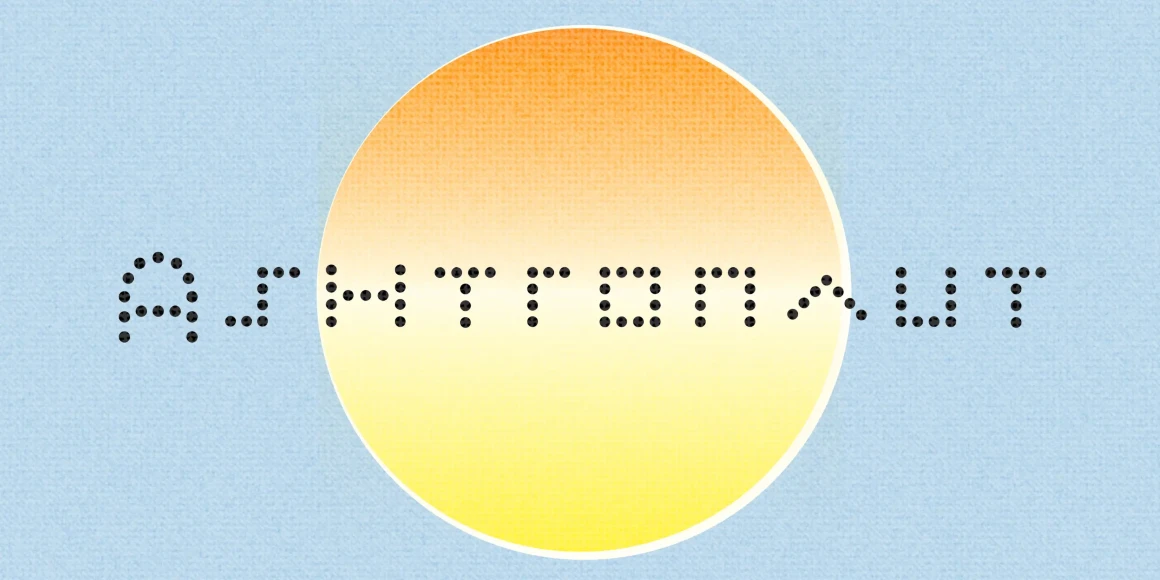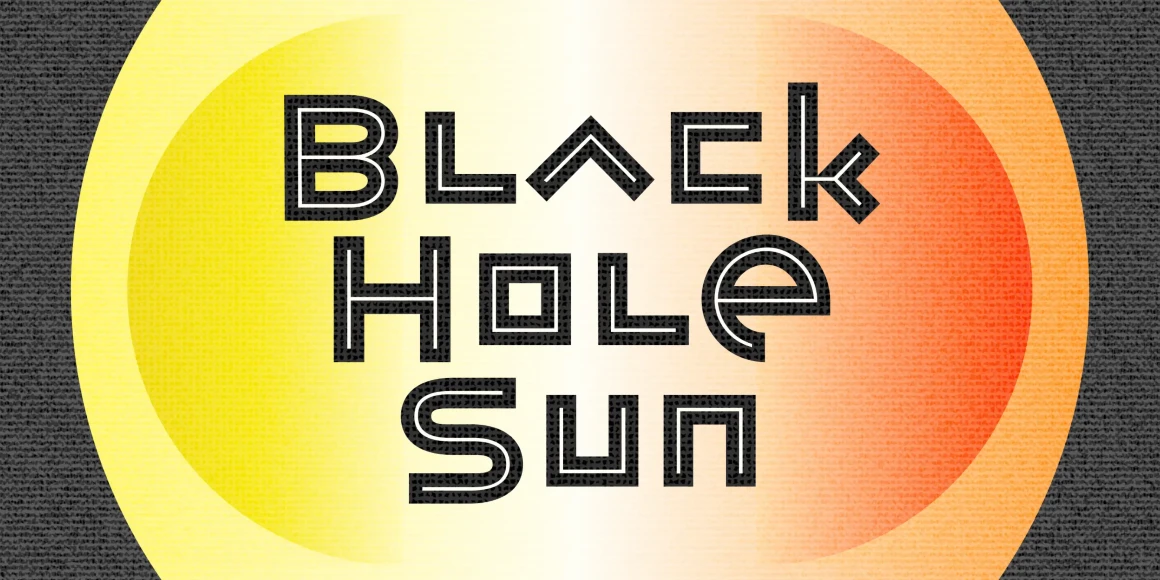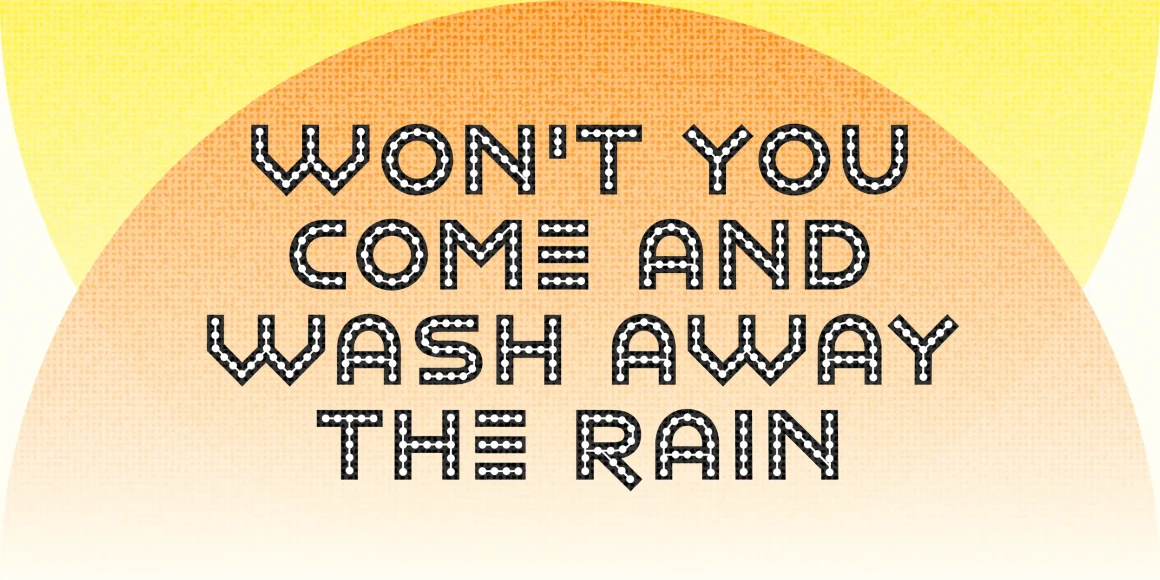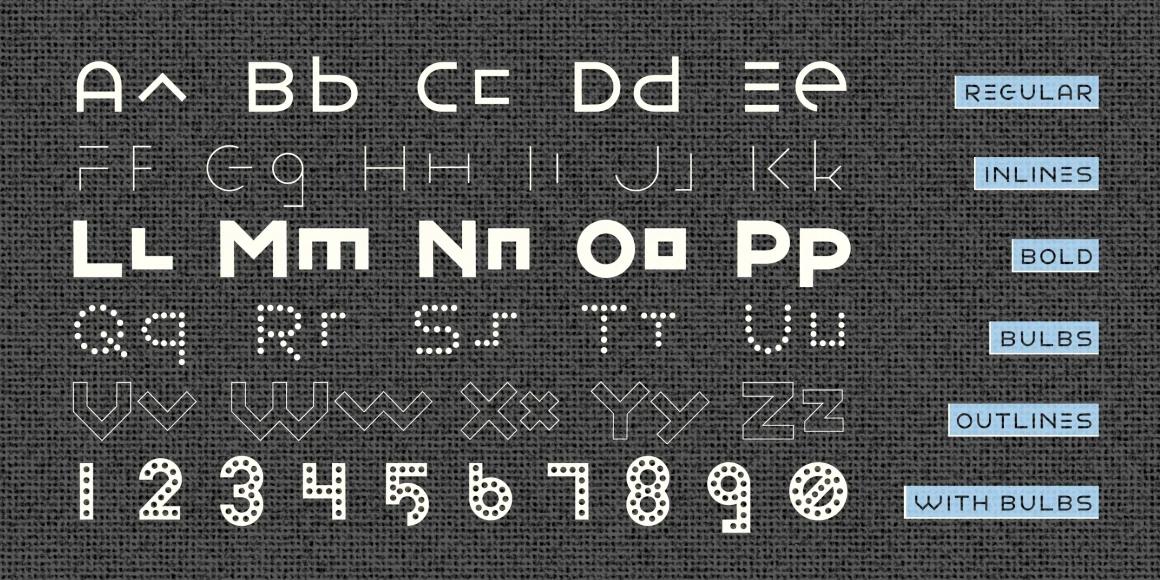
Ashtronaut
Like a phoenix rising from the ashes, the new Ashtronaut font is on fire and blasting off into outer space. This futuristic new font combines basic geometric forms like circles and dashes to form uppercase shapes that are softer and more traditional and lowercase letters with sharp and abstract characteristics. The result is a minimalist style that creates distinct and innovative new glyphs and letter combinations. The basic Bold variety is the strongest of the bunch. Try overlapping it with the other styles — Inlines, Outlines, and Bulbs — in different colors for dramatic and exciting effects.